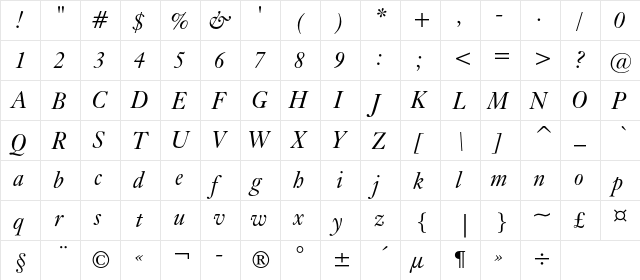
KisC BT Italic
Design Context for KisC BT Typeface
KisC BT takes a measured approach to typography — its balanced proportions and neutral character make it a reliable workhorse for both digital and print work. The dynamic lean of this cut emphasises speed and emphasis in any layout.
Pro Tip: Try KisC BT for annotation and caption copy alongside an upright companion — the contrast in angle creates a dynamic but ordered typographic system.